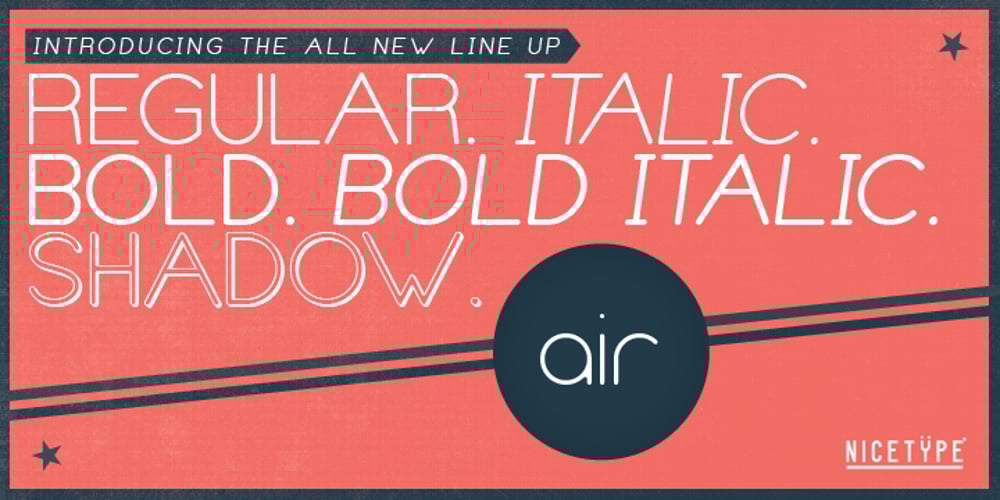
Air font
Air Font Family was designed by Dan Jones and published by NiceType. Air contains 5 styles and family package options. Air is a clean, contemporary, geometric sans typeface that has been designed for use in minimalist layouts where type is hero, such as those for high fashion magazines, and luxury brands. The rounded face is smooth, subtle, and non-intrusive, even when scaled up so will work effortlessly in editorial layouts when used with or without imagery.